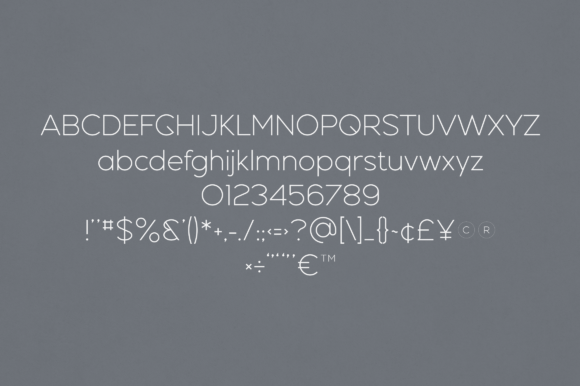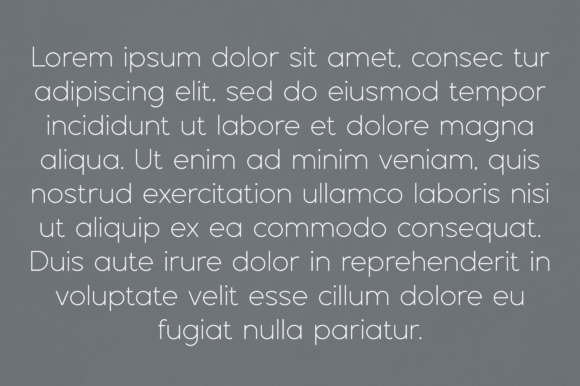
Elevate Your Design with Cloud Font: The Ultimate Sans Serif Elegance
Are you on the hunt for a font that can instantly elevate your design projects and make them stand out from the crowd? Look no further than Cloud Font, an elegant and versatile sans serif font designed to bring a touch of sophistication and uniqueness to your typography. Whether you’re working on a logo, branding materials, headlines, or simply adding a stylish text overlay to a background image, Cloud Font is the perfect choice for designers and crafters alike.
The Versatility of Cloud Font
Cloud Font is not just another font; it’s a design game-changer. Its clean and crisp sans serif lines make it incredibly versatile, suitable for a wide range of projects. From professional branding and home-ware designs to product packaging and magazine headers, Cloud Font adapts seamlessly to any design need. Its elegance lies in its simplicity, making it easy to pair with various backgrounds and design elements without ever looking out of place.
Perfect for Branding Projects
For branding projects, establishing a strong visual identity is crucial. Cloud Font helps you achieve just that with its distinctive yet approachable style. It can be used to create memorable logos, business cards, and marketing materials that reflect your brand’s personality and values. The font’s elegance ensures that your brand stands out in a crowded market, making it more noticeable and engaging to your target audience.
Enhance Your Home-Ware Designs
When it comes to home-ware designs, the right font can add a touch of personality and warmth to your products. Cloud Font, with its soft and inviting appearance, can beautifully complement a wide range of home-ware items, from kitchenware and linens to decorative pieces and furniture. Its stylish and modern look ensures that your designs are not only aesthetically pleasing but also highly marketable.
Elevate Product Packaging with Cloud Font
Product packaging is an essential aspect of product design, serving as a tangible connection between your brand and your customers. Cloud Font can help elevate your product packaging, making it more appealing and engaging on store shelves. Its clarity and readability ensure that your product information is easily accessible, while its stylish appearance captures the attention of potential buyers.
Magazine Headers and Beyond
Cloud Font is also perfect for editorial projects, such as magazine headers, where a striking and elegant font can make a significant impact. Its versatility allows it to be used in various editorial contexts, from headlines and titles to pull quotes and captions. Additionally, Cloud Font can be used for any project that requires a touch of elegance and sophistication, including website headers, social media graphics, and more.
Why Choose Cloud Font?
So, why should you choose Cloud Font for your next design project? Here are a few compelling reasons:
- Elegance and Versatility: Cloud Font offers a perfect blend of elegance and versatility, making it suitable for a wide range of design projects.
- Unique Typography: With Cloud Font, you can create truly unique typography that sets your designs apart from the competition.
- Easy to Read: Despite its elegant appearance, Cloud Font remains highly readable, ensuring that your message is communicated effectively.
- Highly Customizable: Cloud Font can be easily customized to fit your brand’s style and personality, making it a versatile choice for any project.
In conclusion, Cloud Font is an exceptional sans serif font that can elevate your design projects to new heights. Its elegance, versatility, and readability make it the perfect choice for designers and crafters looking to create unique and engaging typography. Whether you’re working on branding projects, home-ware designs, product packaging, or editorial content, Cloud Font is sure to enchant your audience and make your designs truly memorable.